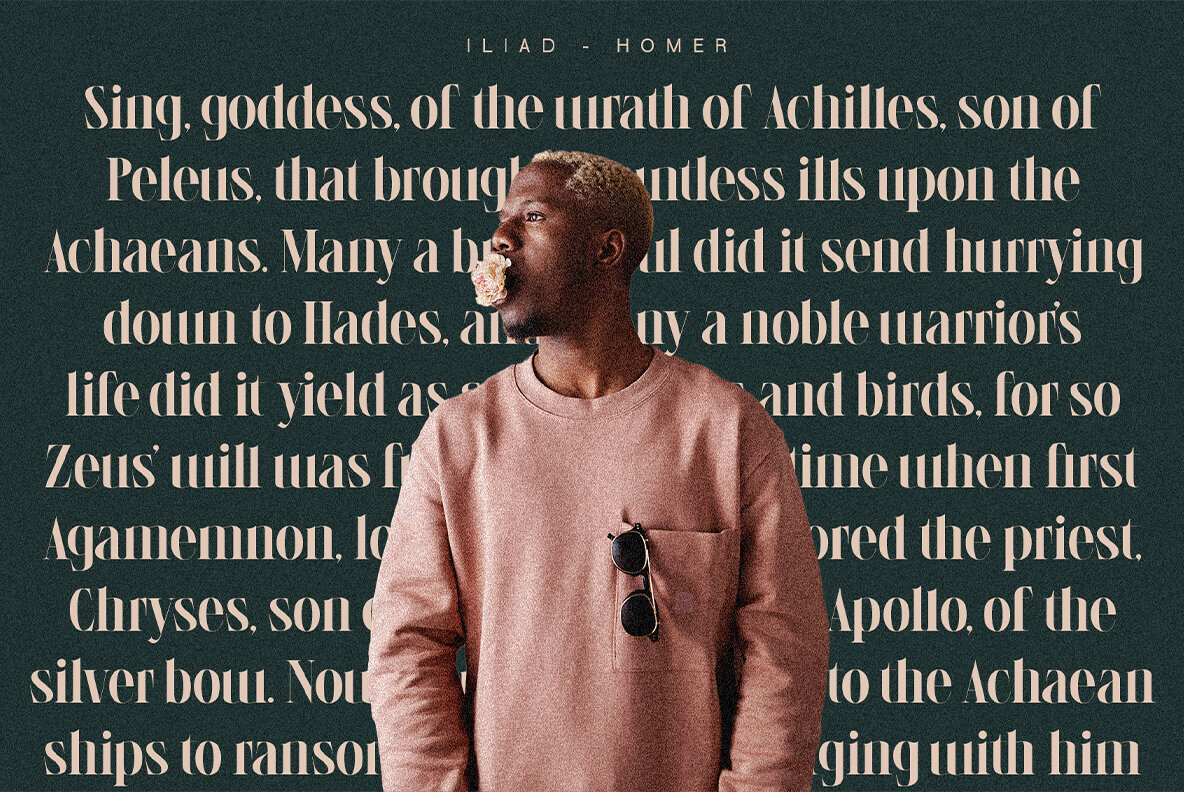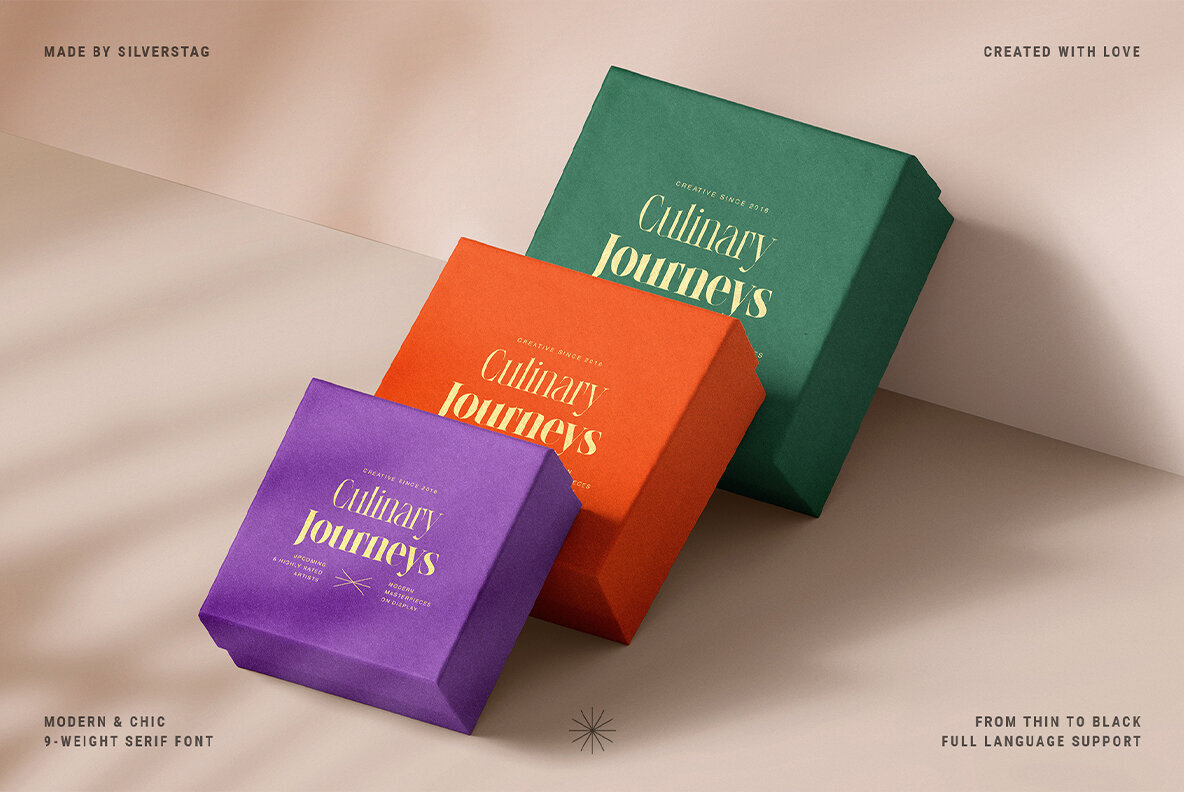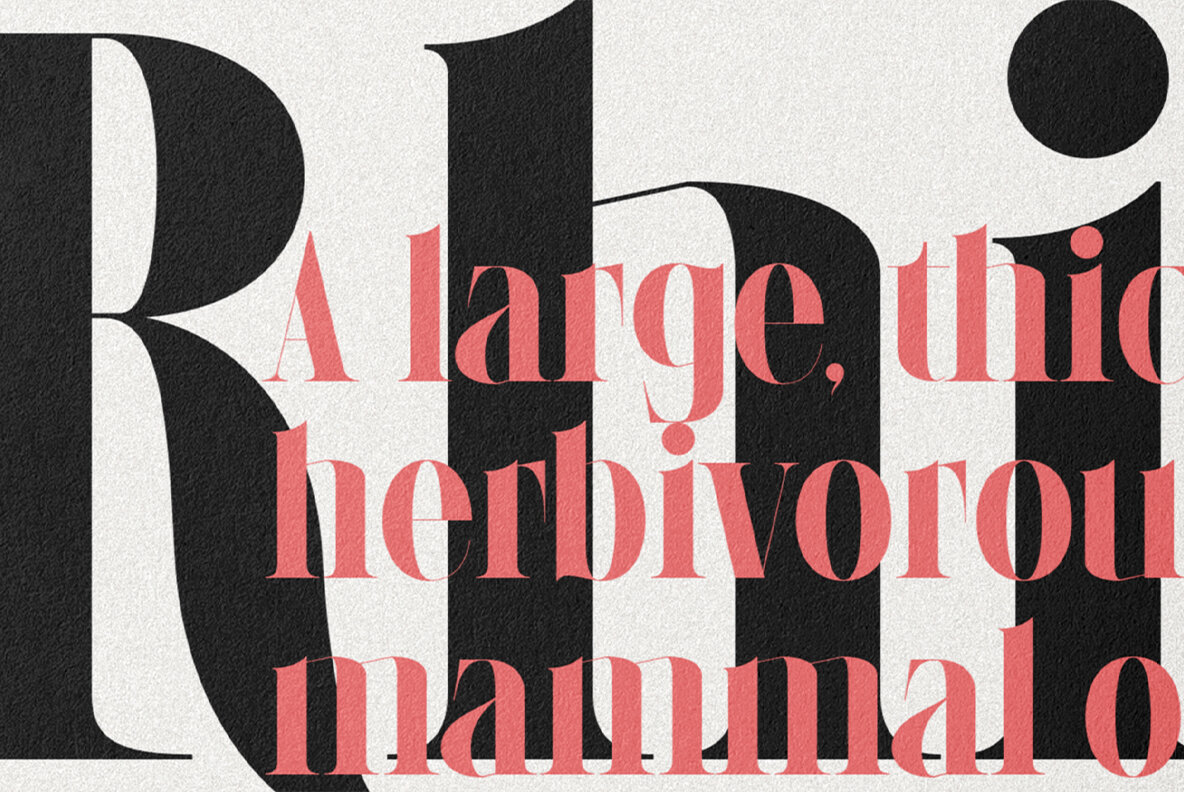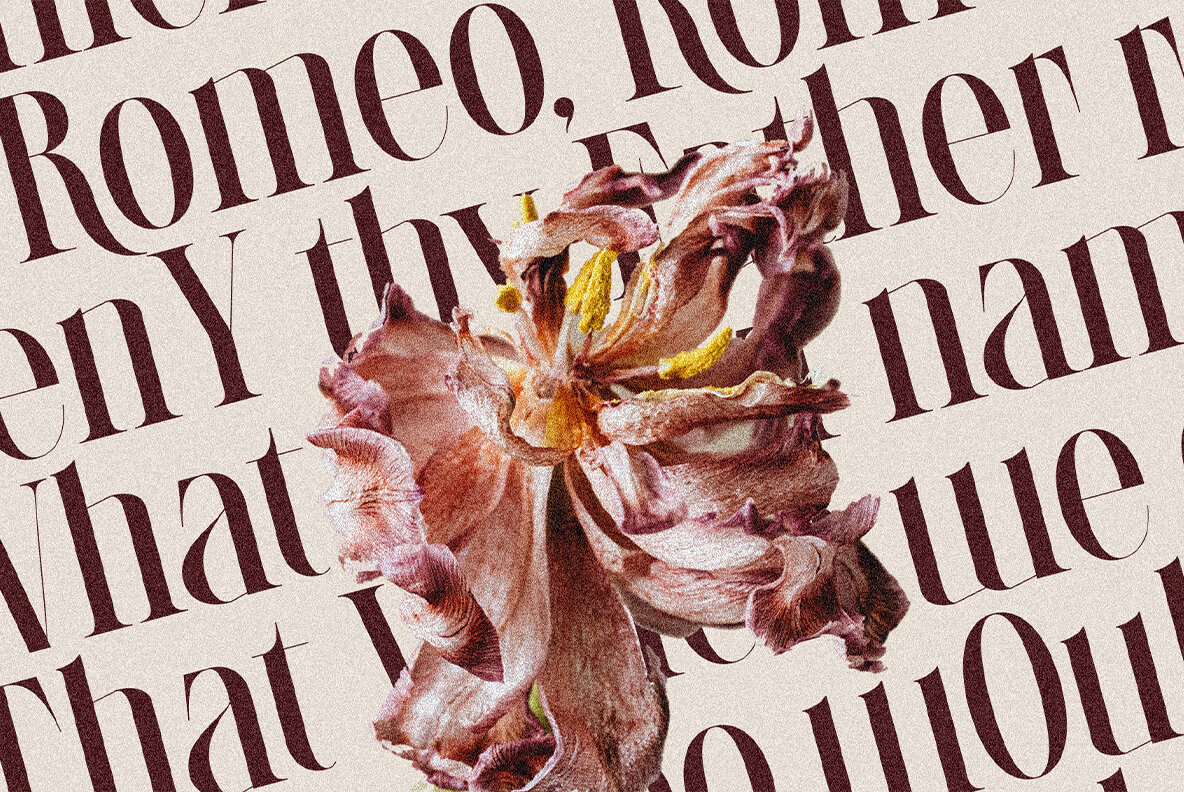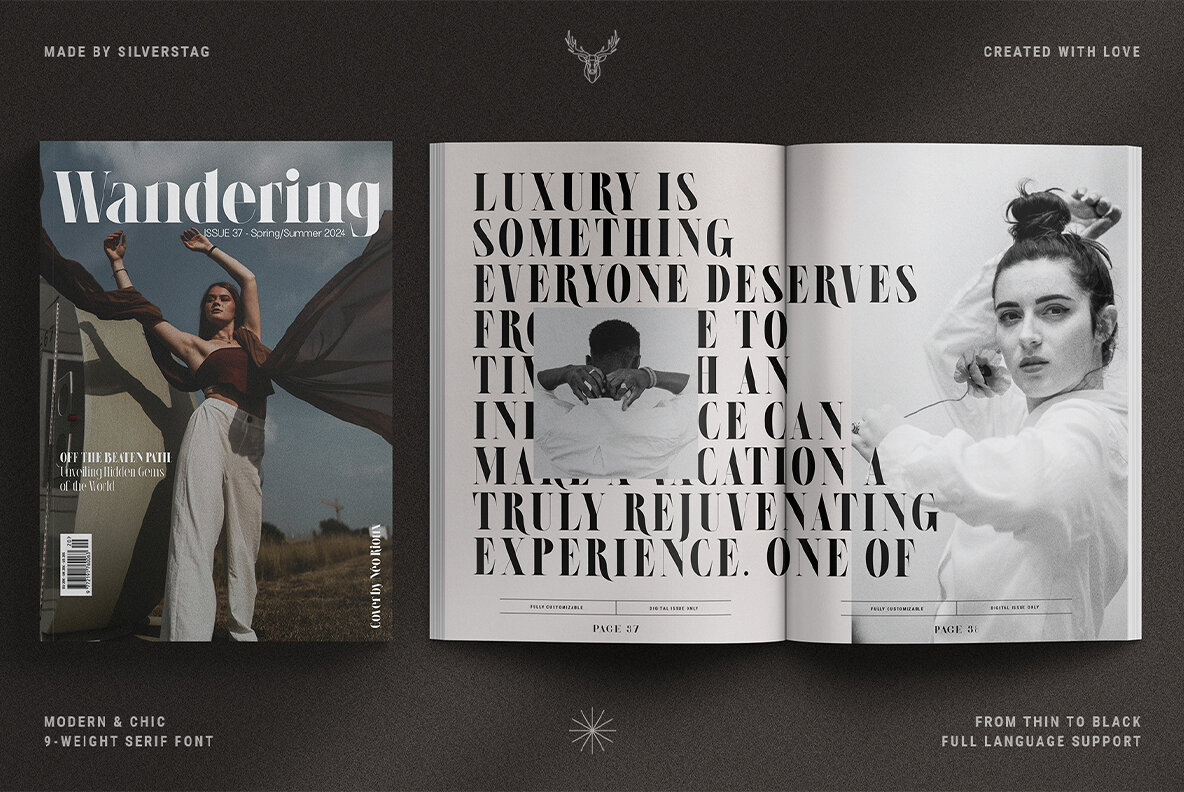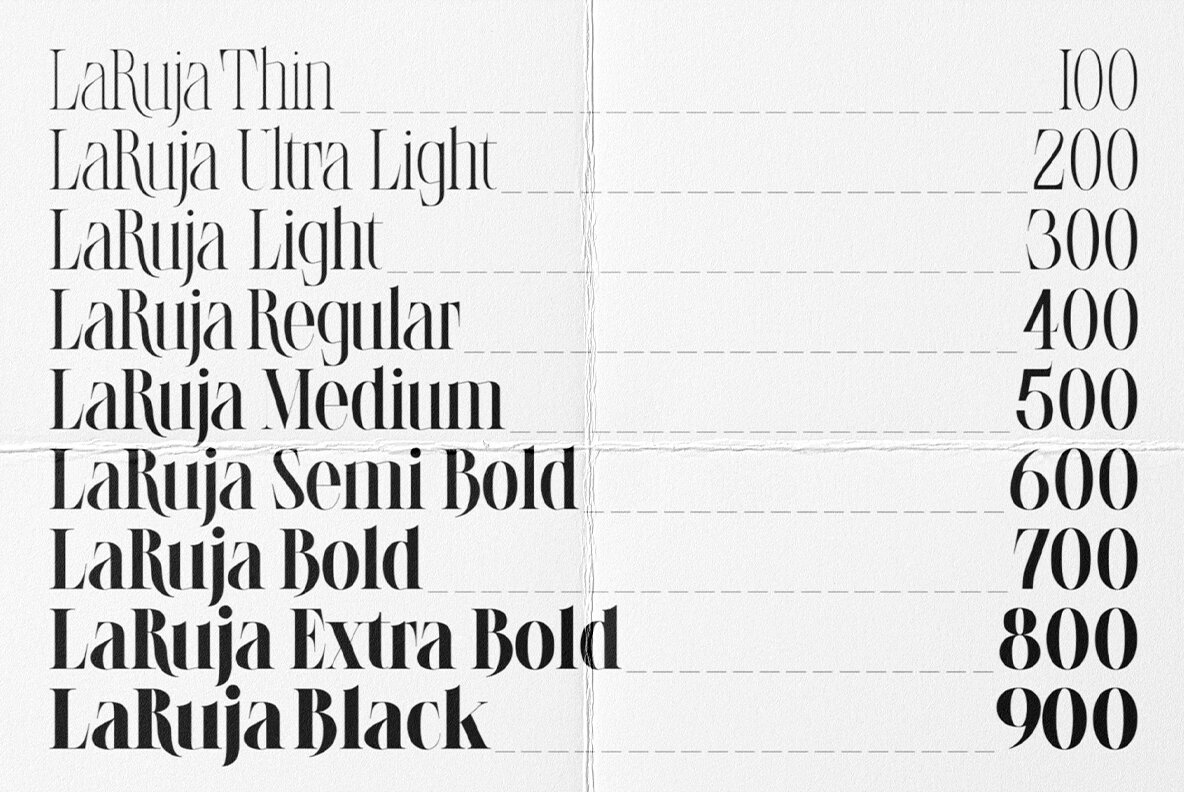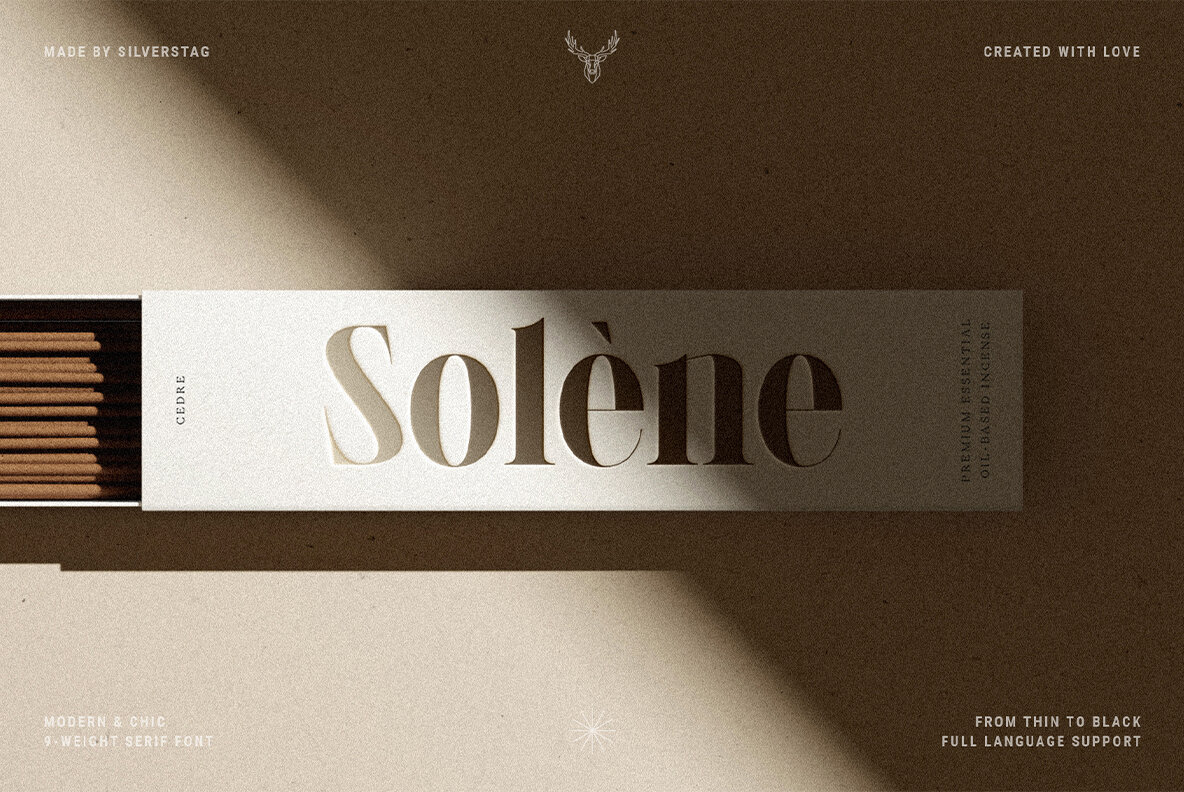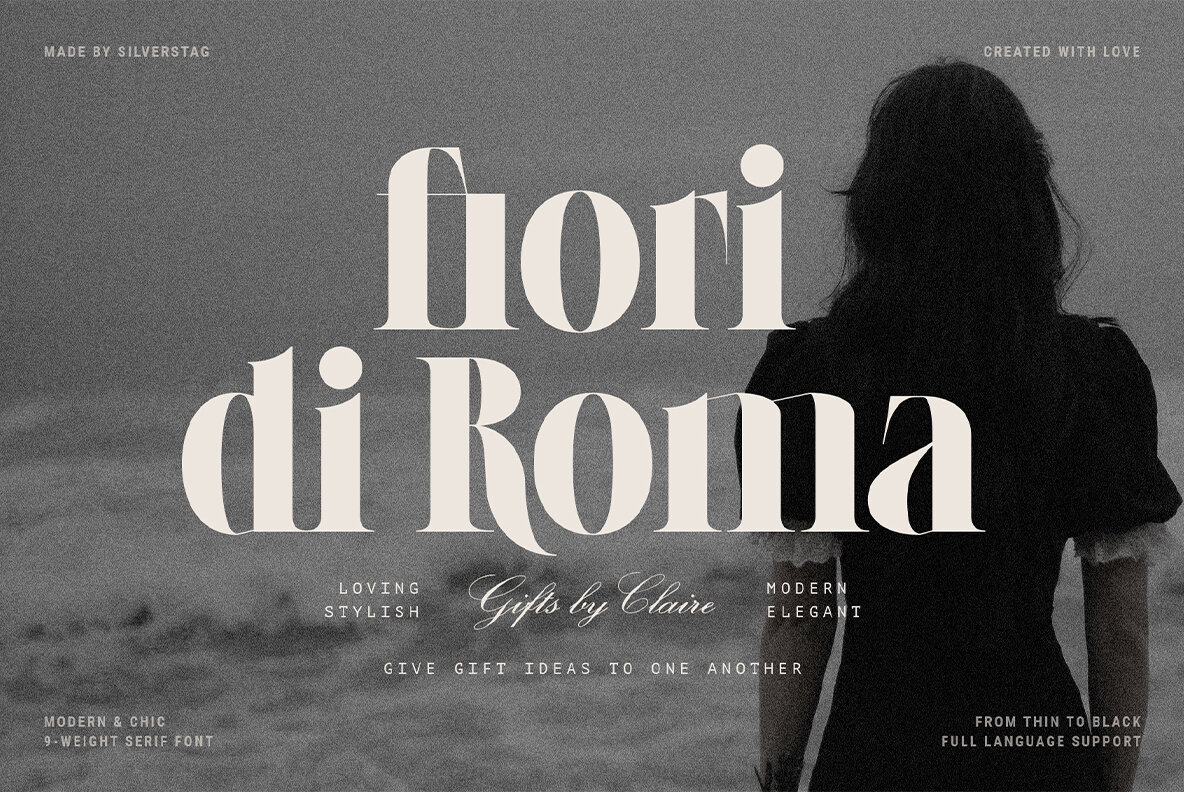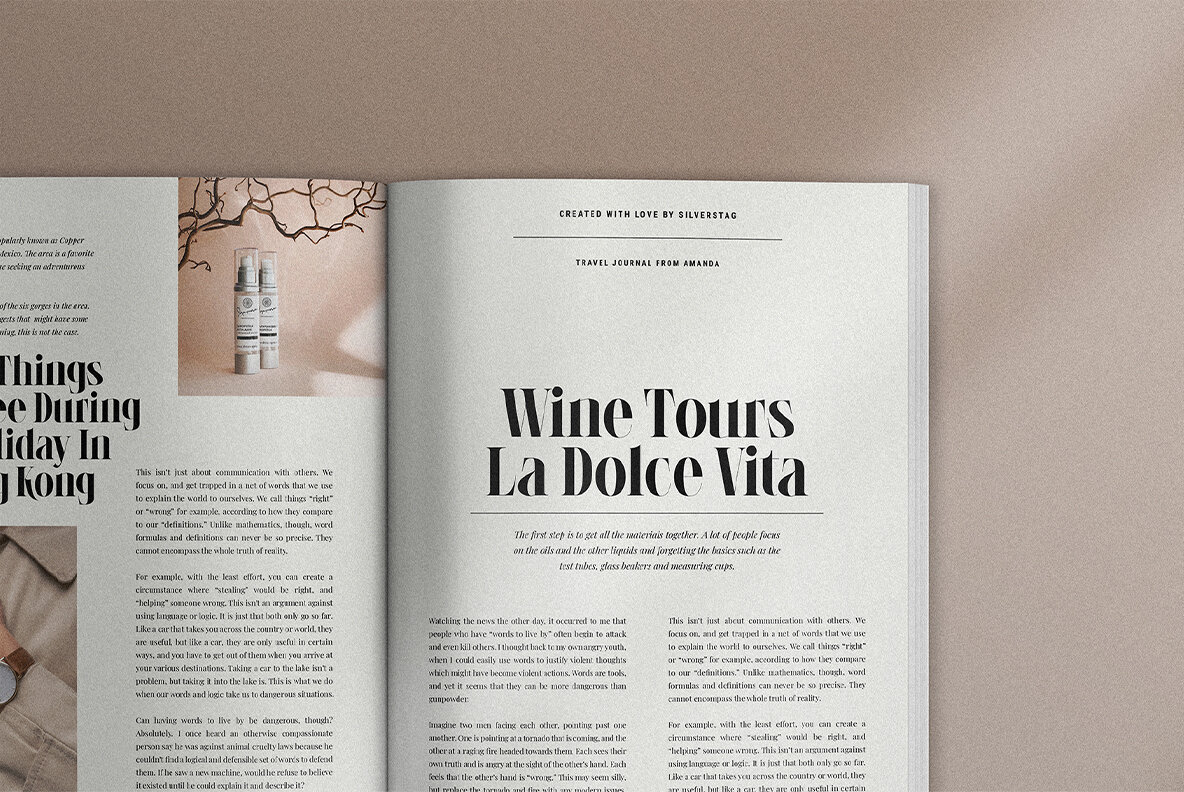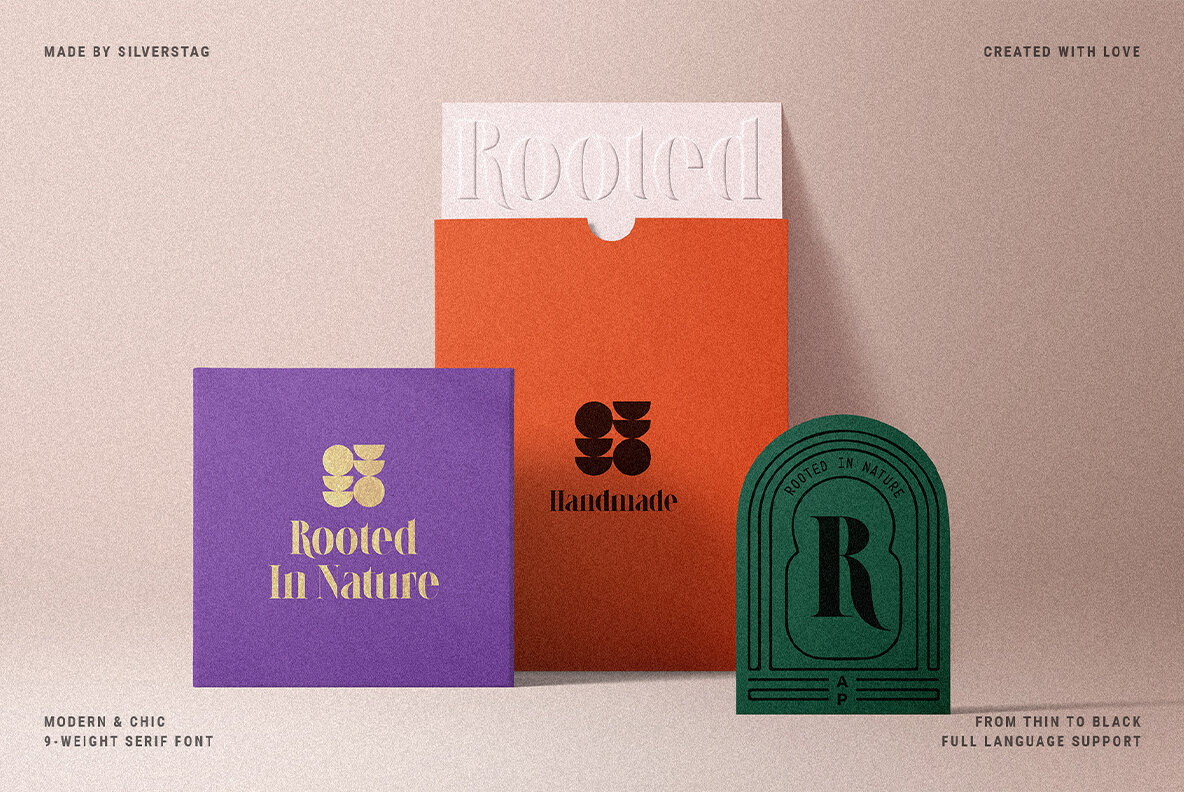
LaRuja Font
Embrace the captivating elegance of LaRuja, a modern serif font that seamlessly blends feminine grace with unwavering strength. Its distinctively high contrast between horizontal and vertical lines creates a dynamic interplay of elegance and structure, making it a versatile choice for a wide range of applications. LaRuja's gracefully tapered terminals and subtly curved arches exude a sense of refined femininity, while its sturdy serifs and well-defined letterforms project an unyielding strength. This unique balance of characteristics makes LaRuja the ideal choice for projects that demand both beauty and substance. LaRuja's extensive language support, encompassing over 90 languages, makes it a global font that can be effortlessly adapted to diverse cultural contexts. From fashion magazines and branding materials to websites and marketing campaigns, LaRuja seamlessly conveys your message across borders. LaRuja's comprehensive weight system, ranging from Thin to Black, enables you to tailor the font's appearance to suit the specific needs of your project. The lighter weights, such as Thin and Light, exude elegance and sophistication, while the heavier weights, such as Semibold and Black, project authority and impact. Would you like to get 5 completely free fonts worth over $75? No tricks, no hidden words, terms or anything. Just subscribe to my newsletter, make sure to check your email to approve the subscription, add me to your contacts so that the emails don't end up in spam folder and you will get 5 fonts for free. The fonts are packed with alternates, ligatures and some even come with extra goodies. Happy creating everyone!